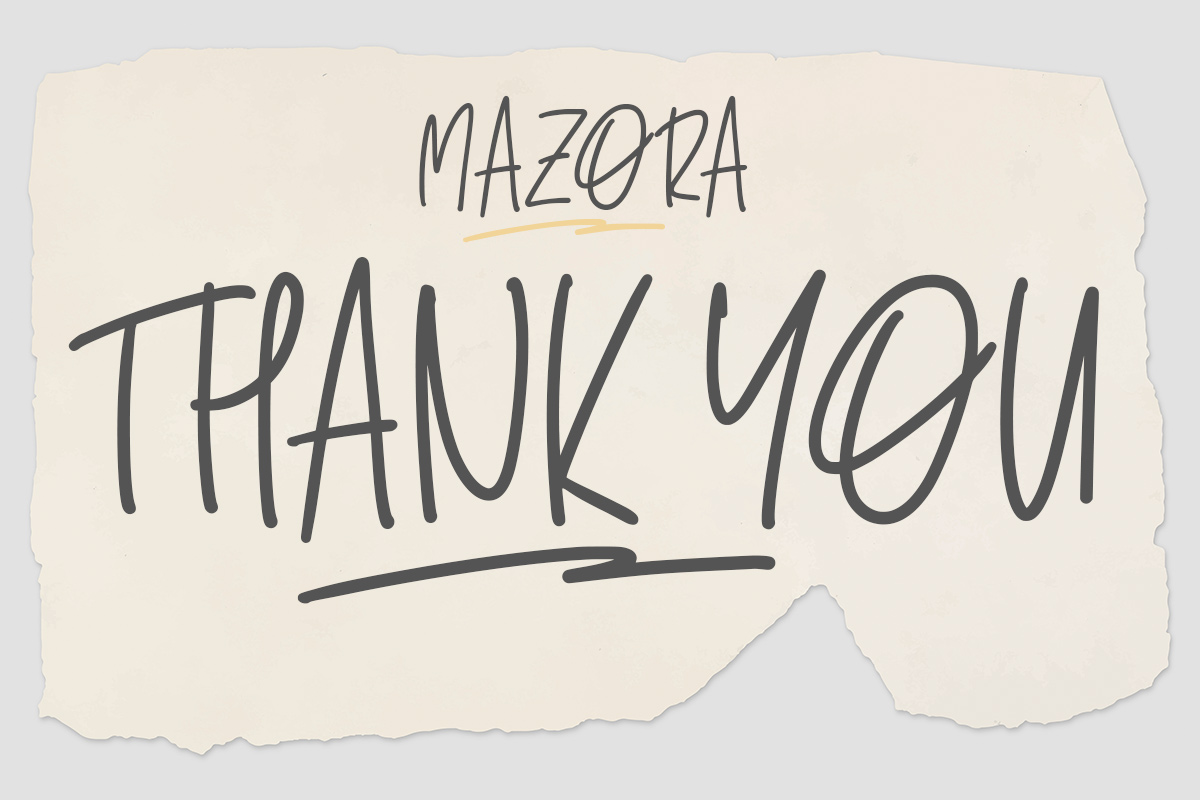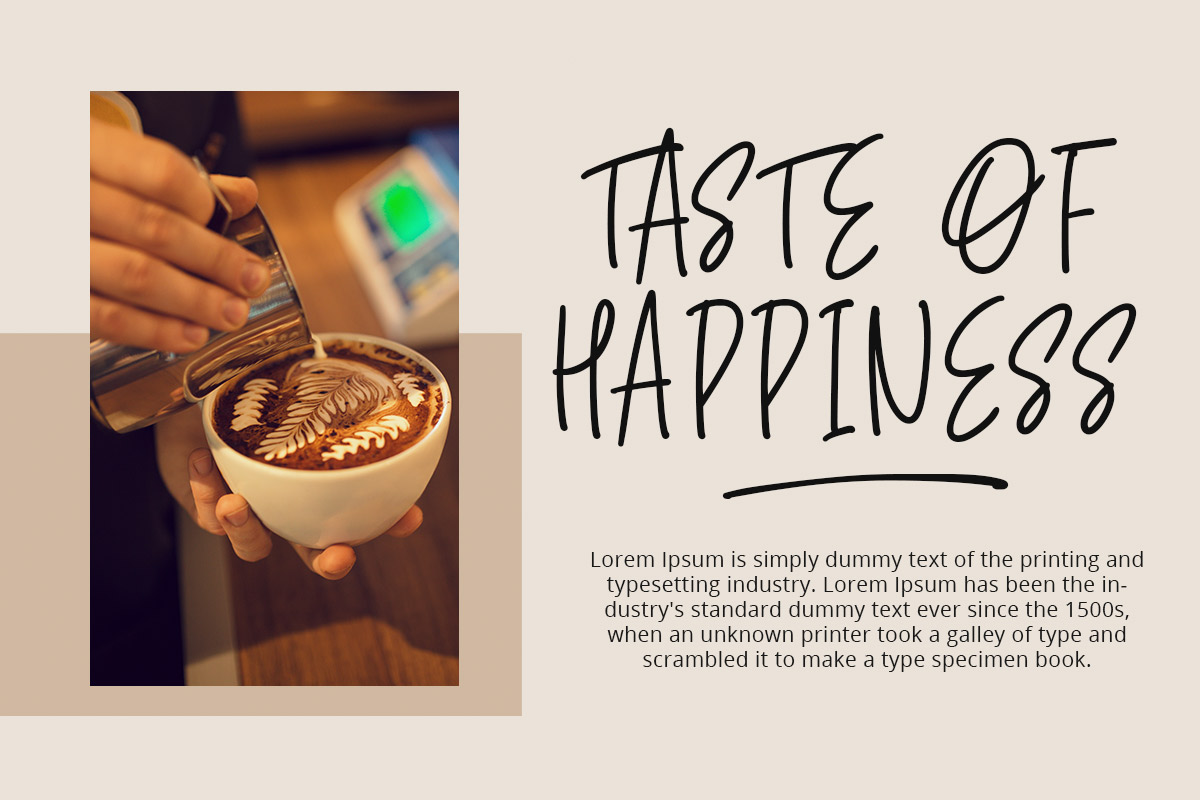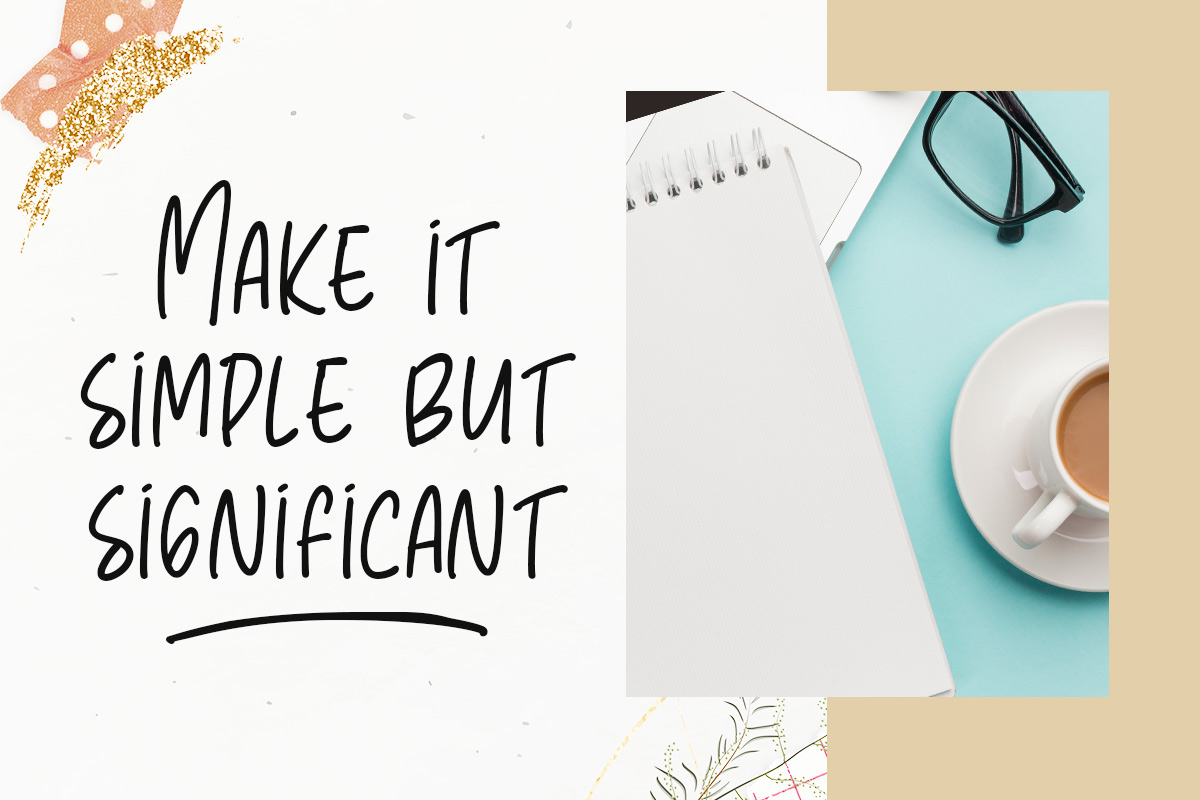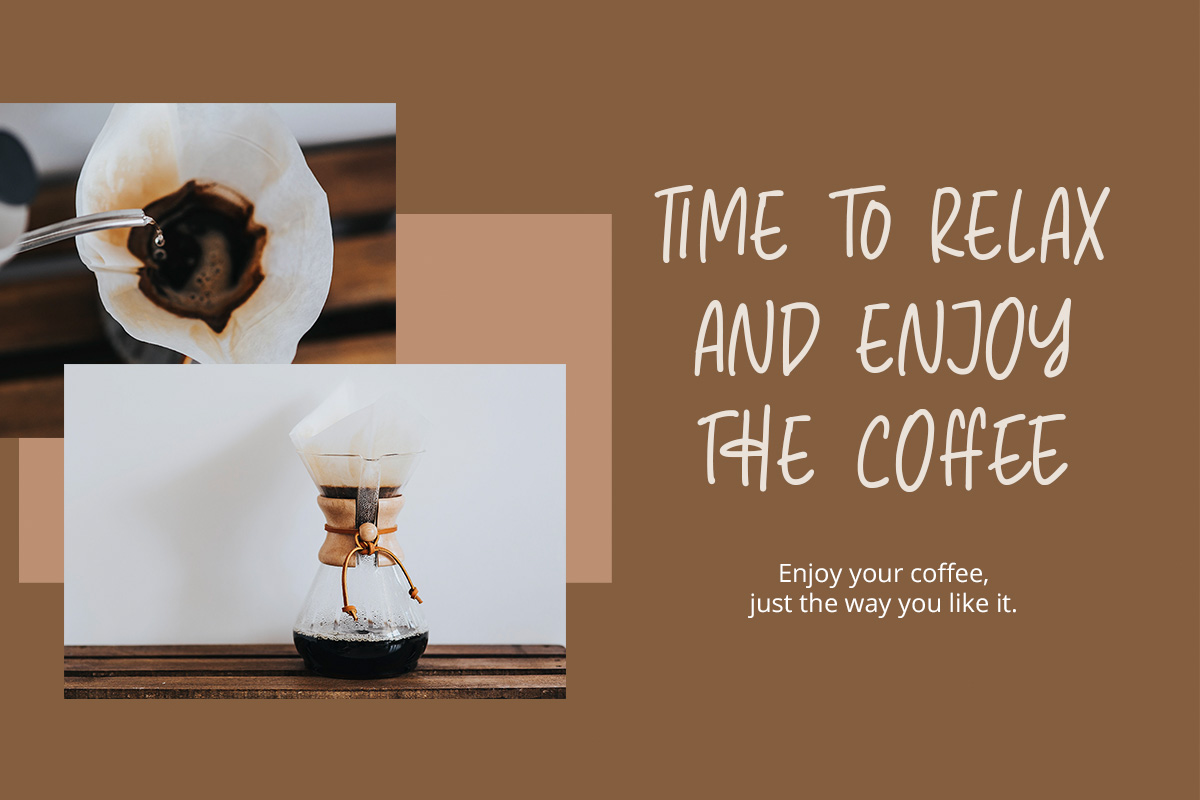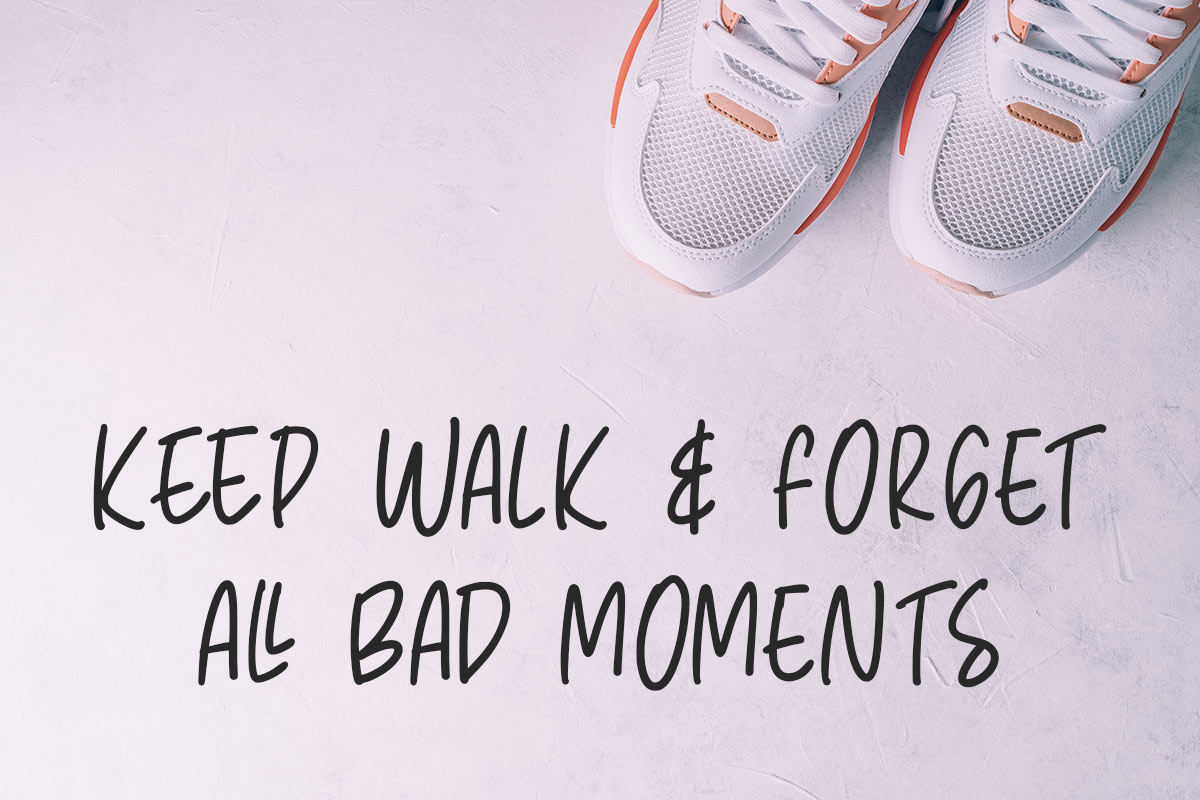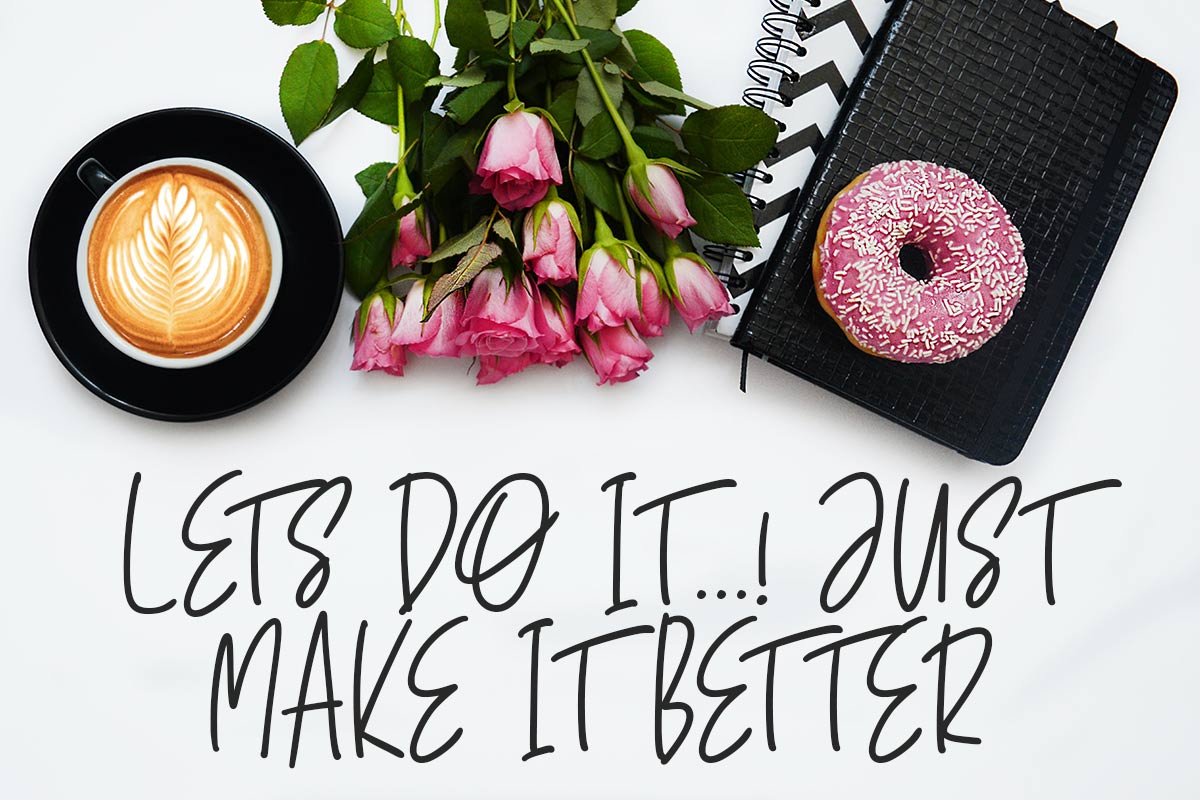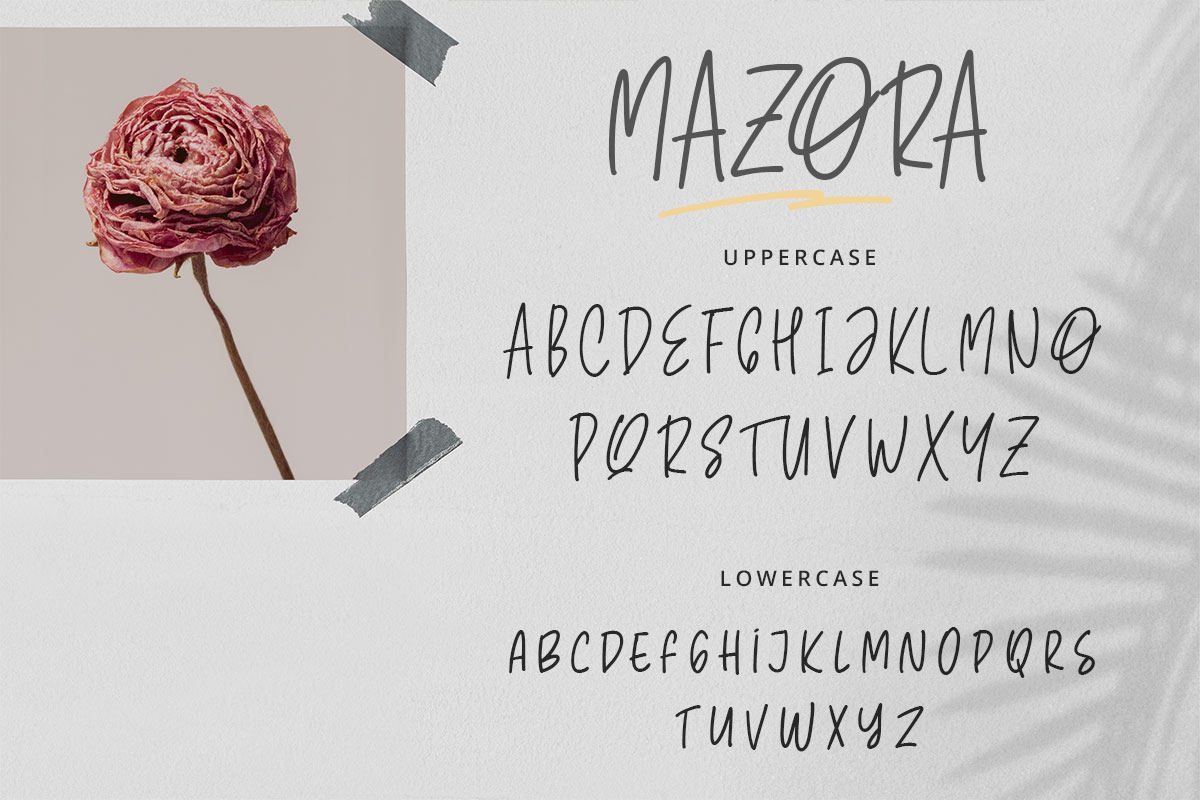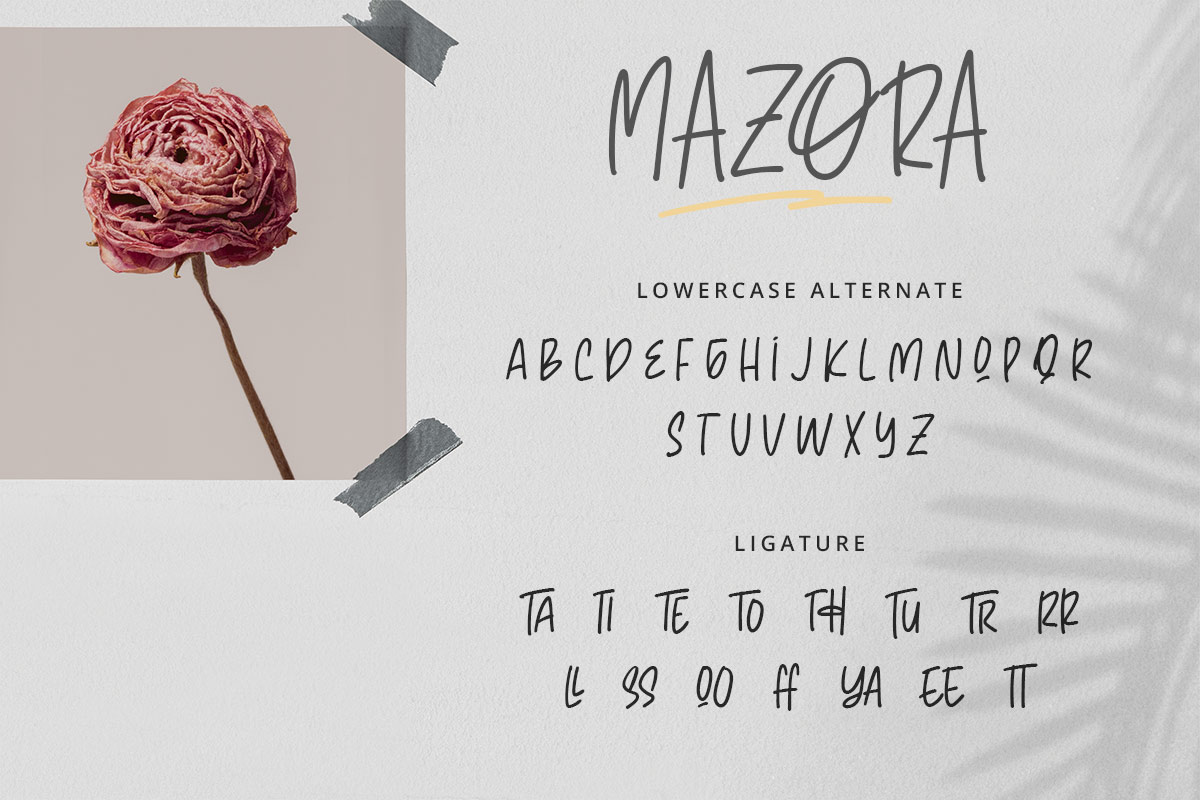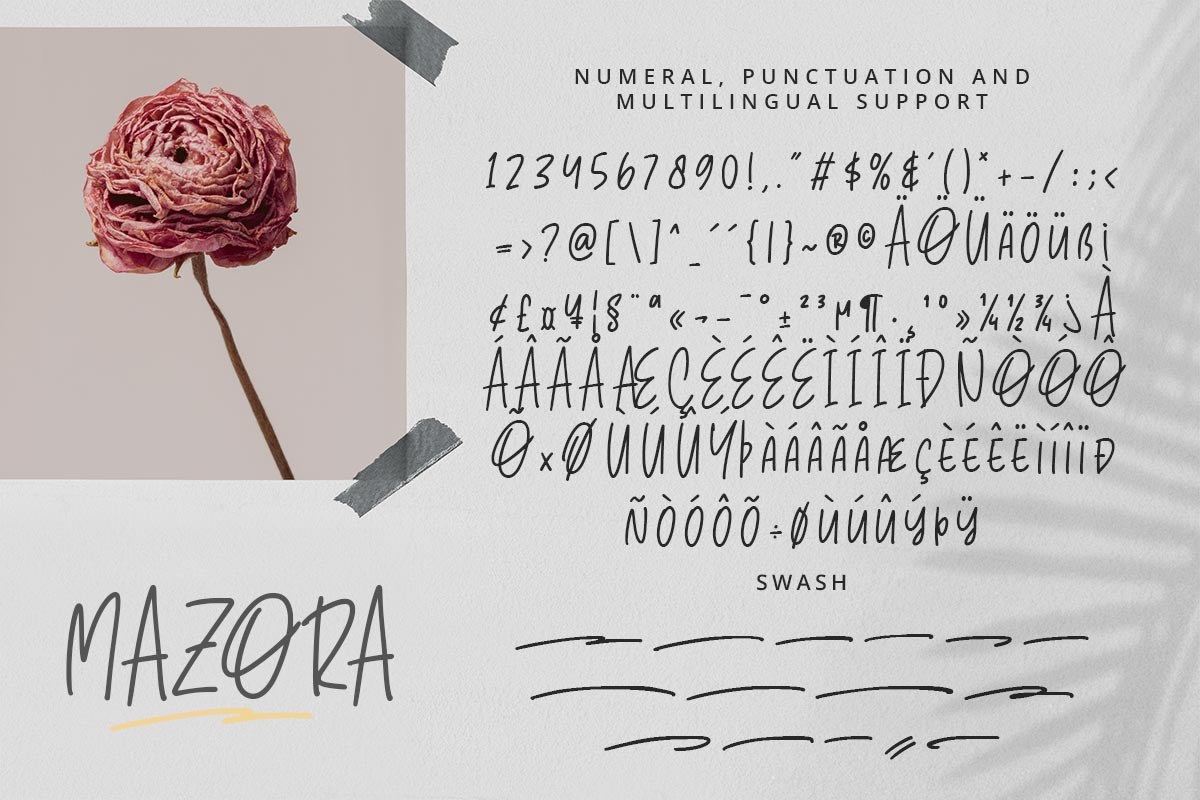
Mazora Monoline Font is a new creation that comes with an attractive style and is formed with a thick classic fun feel. This font is one of those fonts that give you options for people who are interested in using a display font. Mazora Monoline Font has the characteristic that there are few additional letters in it. It is a legible font that is easy to distinguish every letter. This font is visible when printed in small or large font sizes. Mazora Monoline Font is the best font to use in many ways. This font can be a kid's font. Mazora Monoline Font will look simple and cute when combined with several kid supplies such as book covers, posters, and others. Mazora Monoline Font can be used for print magazine covers and online magazines. Mazora Monoline Font is beside part of a display font, which can be called a modern font. Its various can be digital fonts and print fonts. The desired impression of this font must be completed by other themes and ornaments that accompany it. Also, it must be used in the right font size. Our Display fonts collection is compatible for use as Figma fonts, Canva fonts, Freepik Fonts, and Adobe Fonts. They also work as Windows Fonts and Apple Fonts. For your social media needs, you can use and install fonts in our Sans Serif font collection to use as Instagram Fonts, Facebook Fonts, and Twitter Fonts.